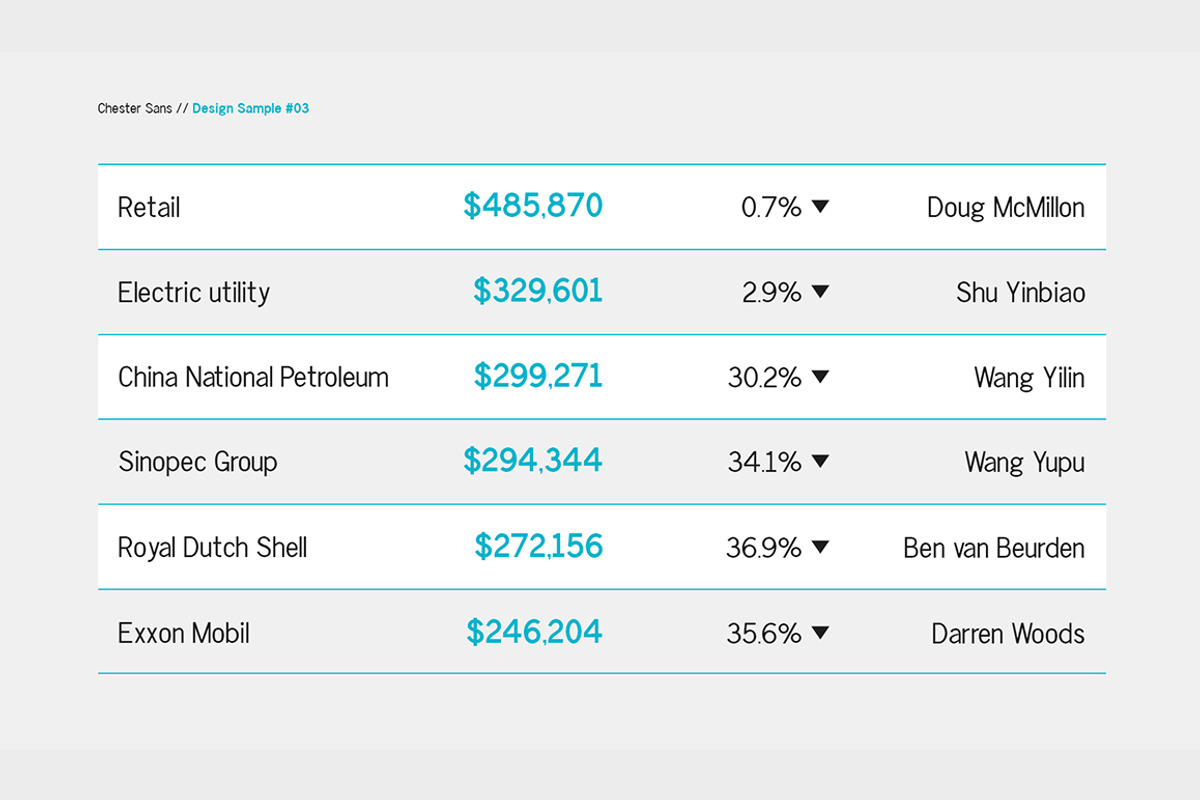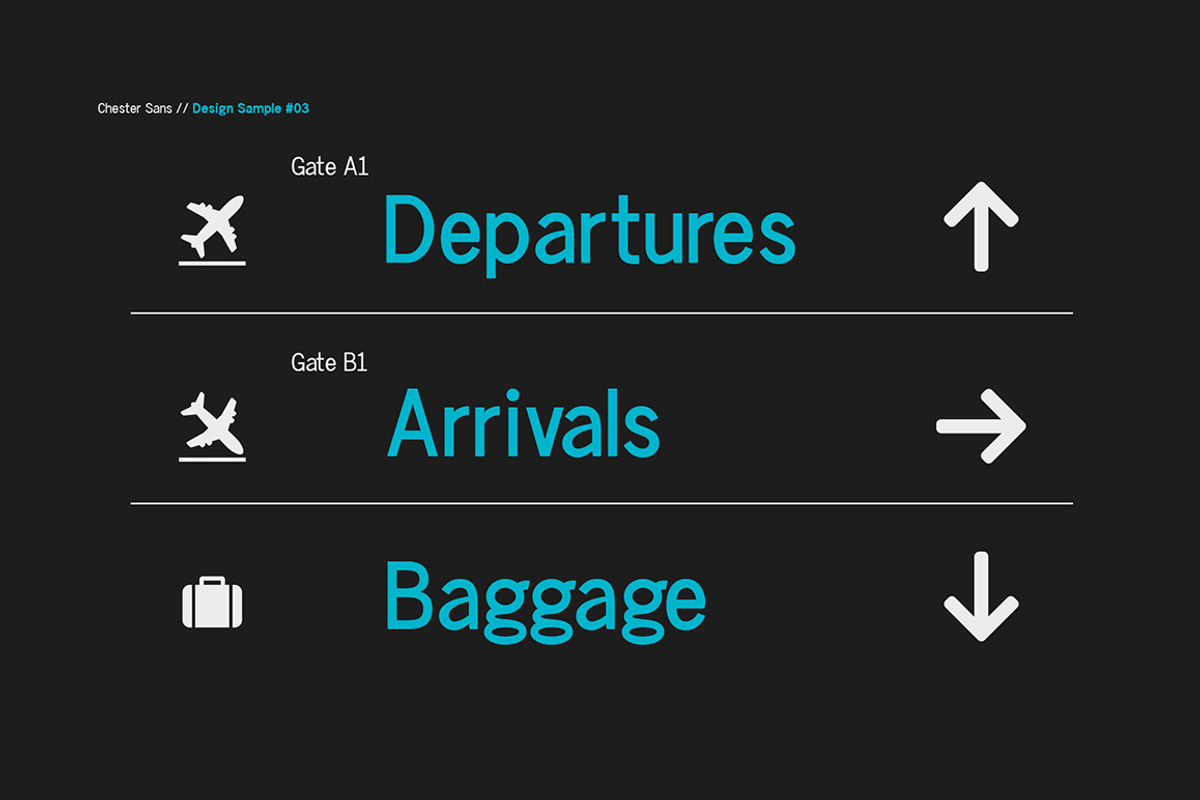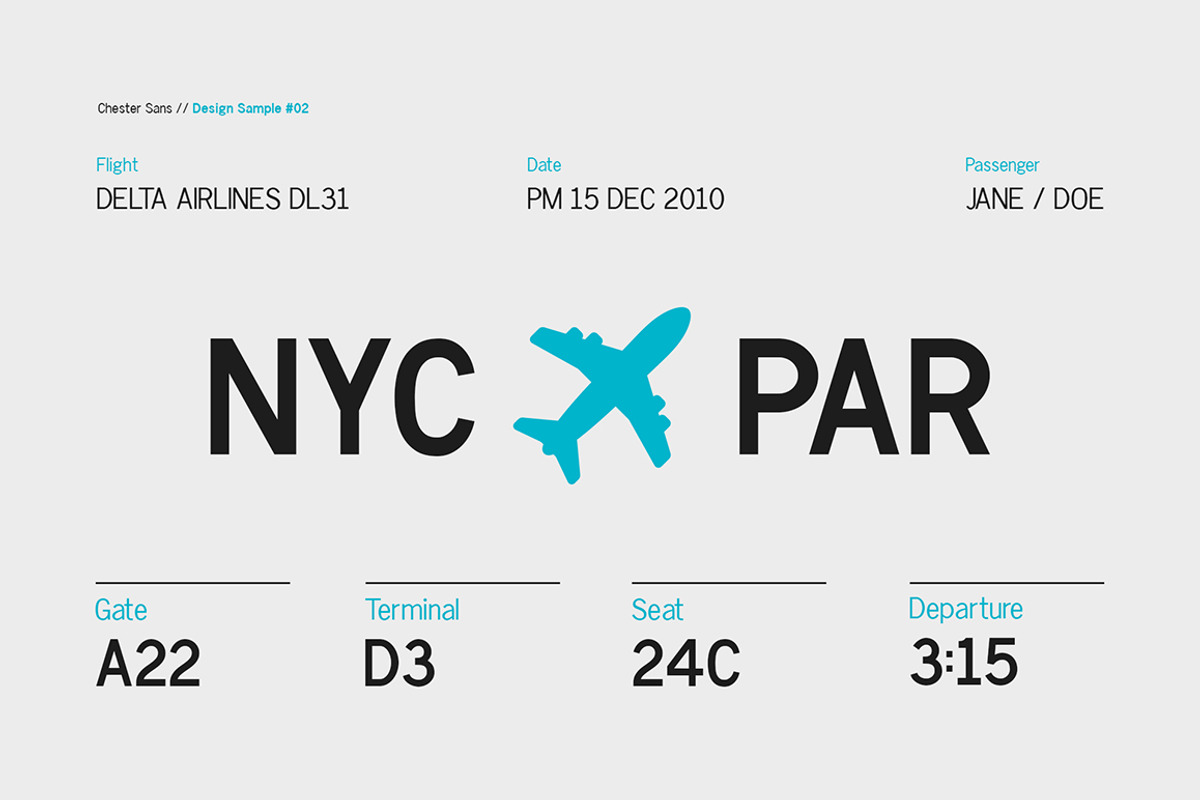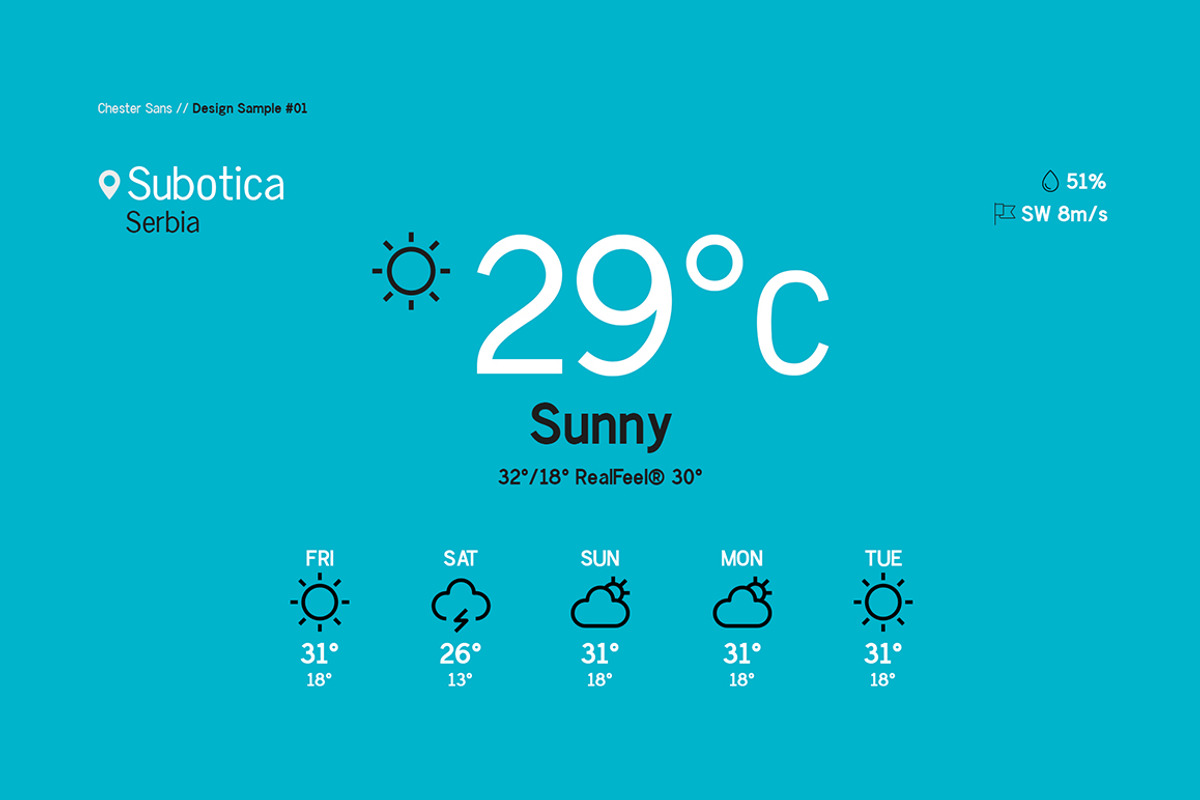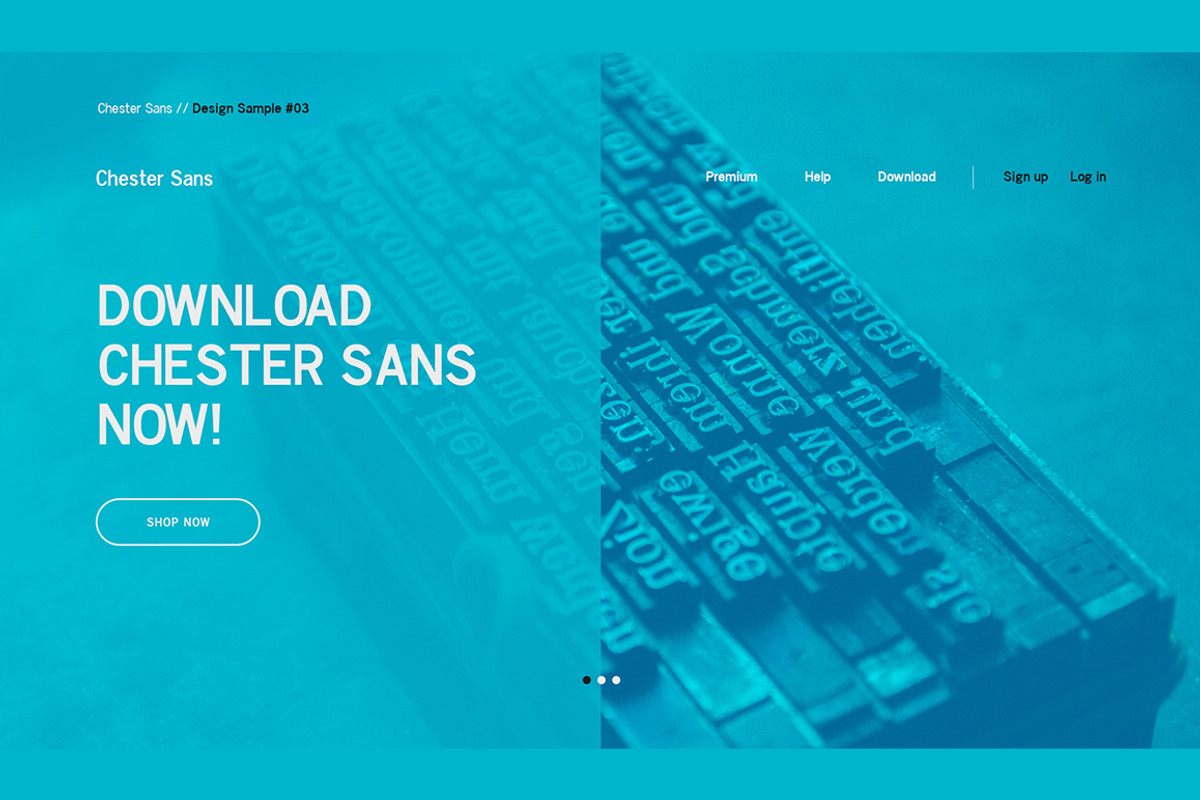
Chester Sans - Type Family
Chester Sans is San serif typeface designed in a week's challenge that i put myself on. I wanted to design a simple font that can be used for everything text based such as annual reports, books, menus etc.
Chester Sans is available in six weights plus matching italic's:
- Chester Sans Light
- Chester Sans Book
- Chester Sans Regular
- Chester Sans Medium
- Chester Sans SemiBold
- Chester Sans Bold
Multilingual support: Russian, Latin, Central European etc.